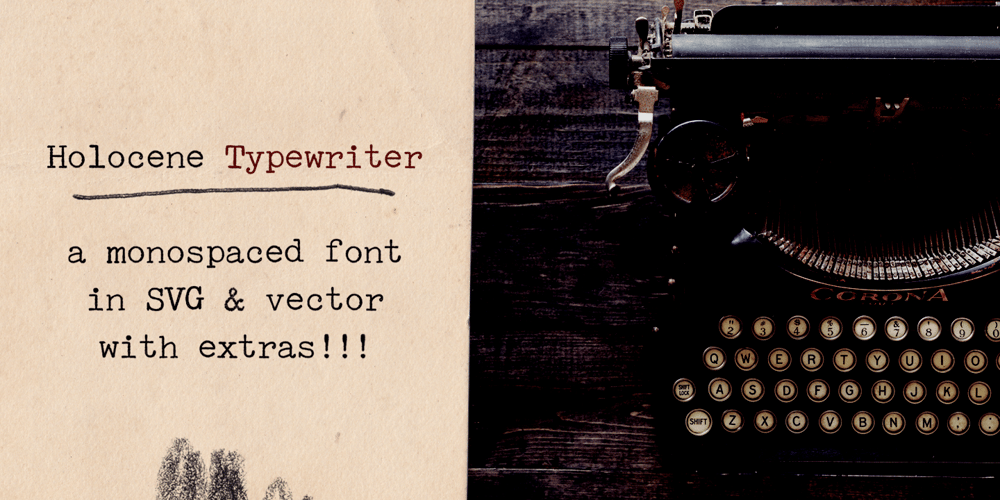
Holocene Typewriter
Holocene Typewriter font
Holocene Typewriter Font Family was designed by Ana Parracho and published by Ana’s Fonts. Holocene Typewriter contains 6 styles and family package options. Holocene Typewriter is a soft typewriter font sampled from old documents, for an authentic vintage look.Holocene Typewriter includes: a Typewriter font in Regular, Slant, Underlined and Crossed-out styles SVG fonts of the Regular and Slant styles Use this font in any designs that needs a vintage touch. Use it in long or short texts, in digital collages, branding and packaging, social media posts, logotypes, etc.